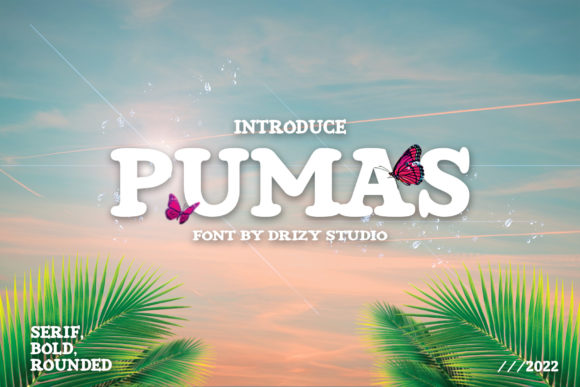
Journey into the realm of typography with the Pumas Font, a creation of Drizy Studio, designed to command attention and leave a lasting impression. This bold and assertive serif font is more than just a collection of letters; it's a visual masterpiece, a symphony of shapes and curves that dance across the screen, captivating the reader with its undeniable allure.
With Pumas Font, your designs will transcend the ordinary and soar to new heights. Its striking presence will elevate any project, from captivating headlines that demand attention to elegant body text that invites readers to delve deeper into your content. Whether you're crafting marketing materials, designing websites, or creating social media graphics, Pumas Font will transform your words into works of art.
Step into a world of endless possibilities with Pumas Font. Its versatility knows no bounds, adapting seamlessly to a myriad of creative endeavors. Unleash your imagination and let the font's bold strokes and graceful curves guide you as you craft designs that captivate and inspire. From classic and timeless to modern and edgy, Pumas Font possesses the power to transform your vision into reality.
The Pumas Font is not just a font; it's an experience. Immerse yourself in its bold and assertive aura, and feel the creative energy flowing through your fingertips as you bring your ideas to life. With Pumas Font as your companion, you'll discover a newfound passion for design, a relentless pursuit of excellence that will set your work apart from the mundane and propel it into the realm of the extraordinary.